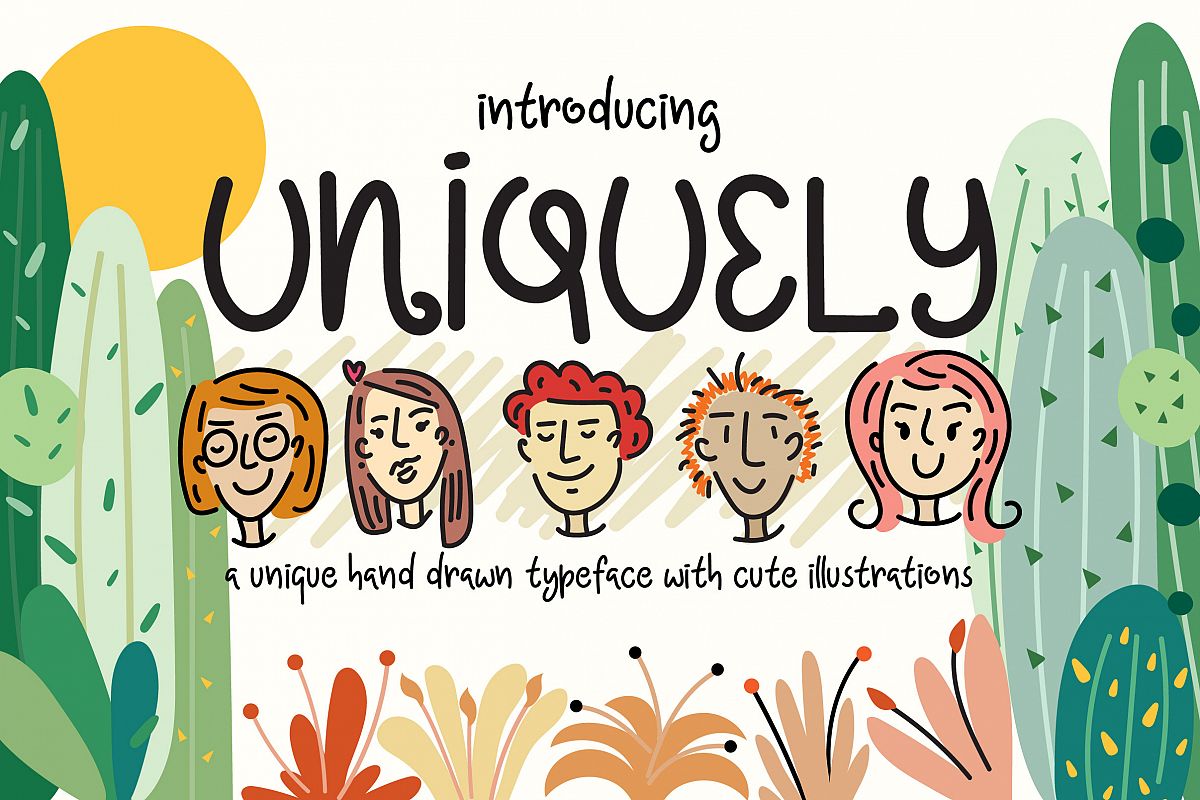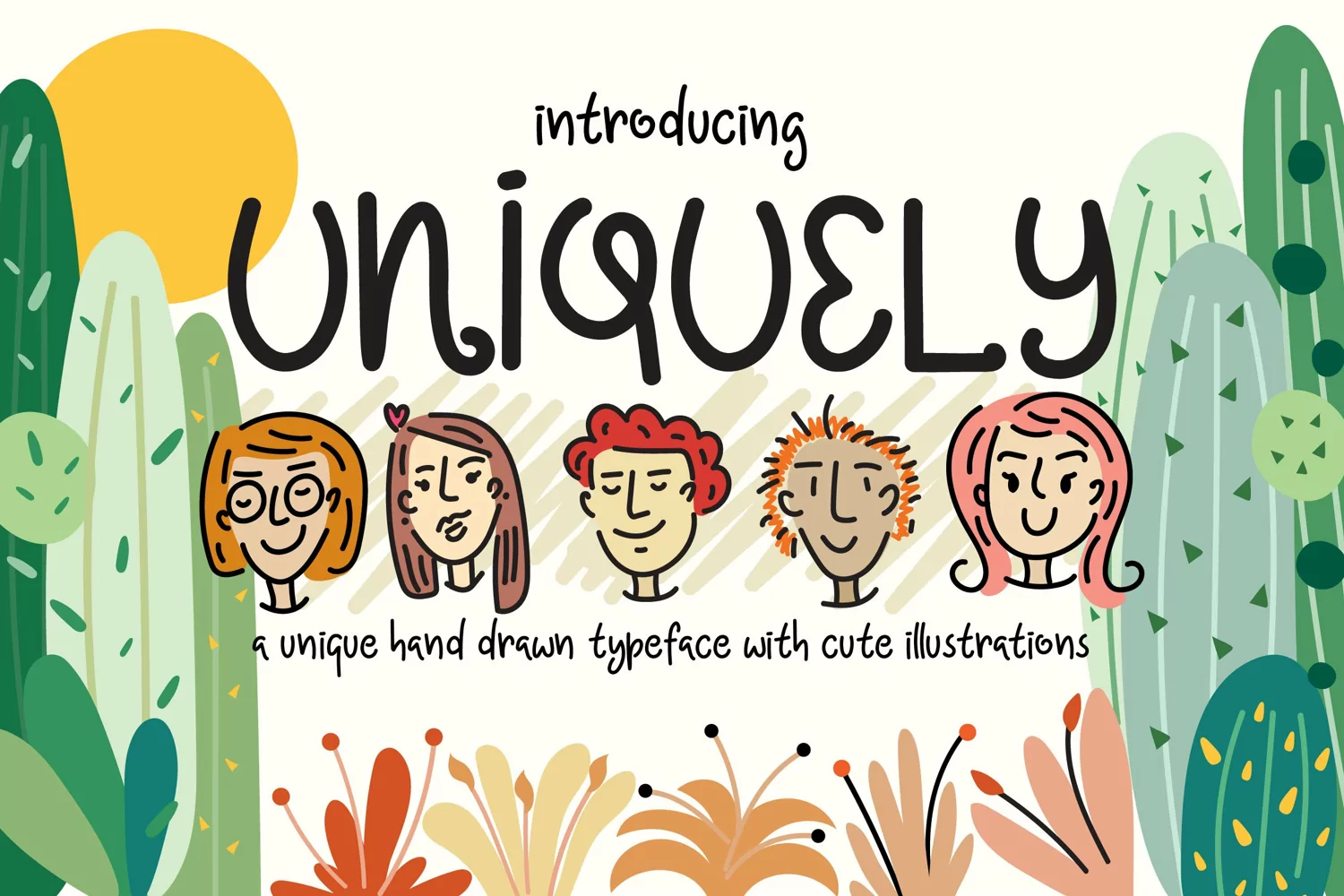
Uniquely Font
Uniquely-Regular
Hi there! Uniquely is a cute hand drawn typeface suitable for hand written look design perfect for your menu, t-shirt design, title, children book, and many more!